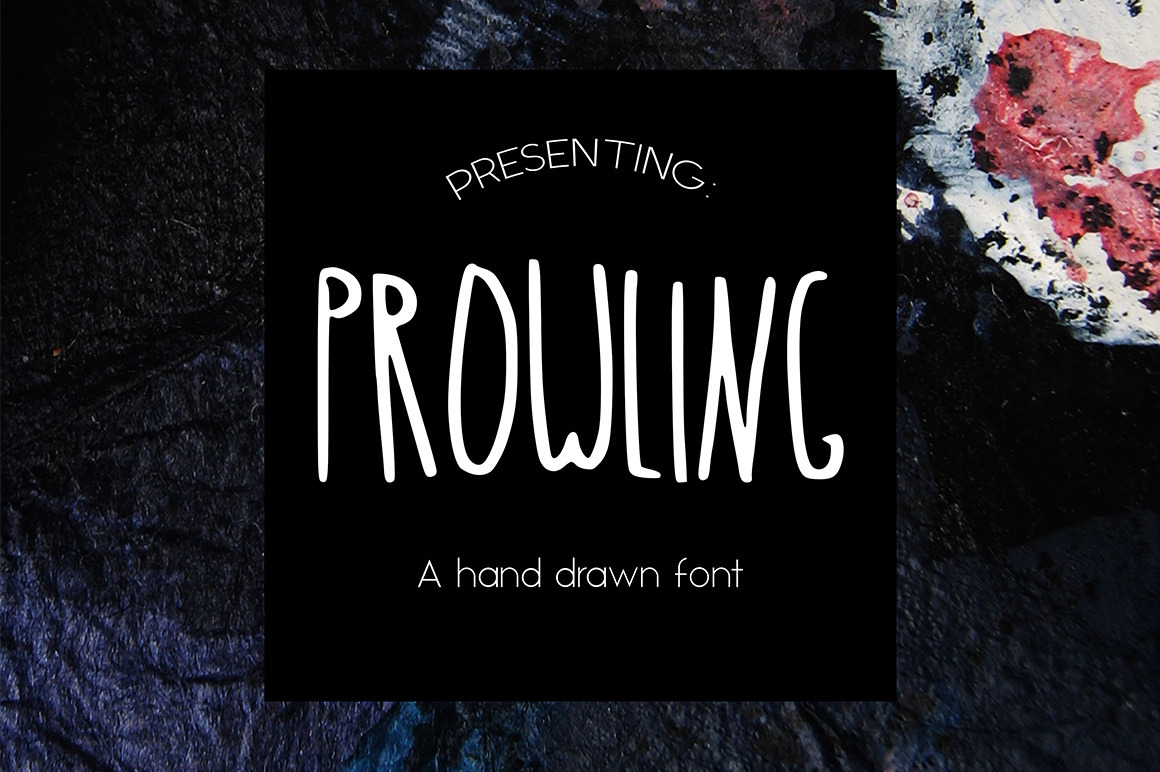
PROWLING hand drawn font
PROWLING a hand drawn font!
You can use on-top of textures, inspirational quotes, for photos, personal designs.
Please note: This font does not have a lower case option, everything is upper-case.